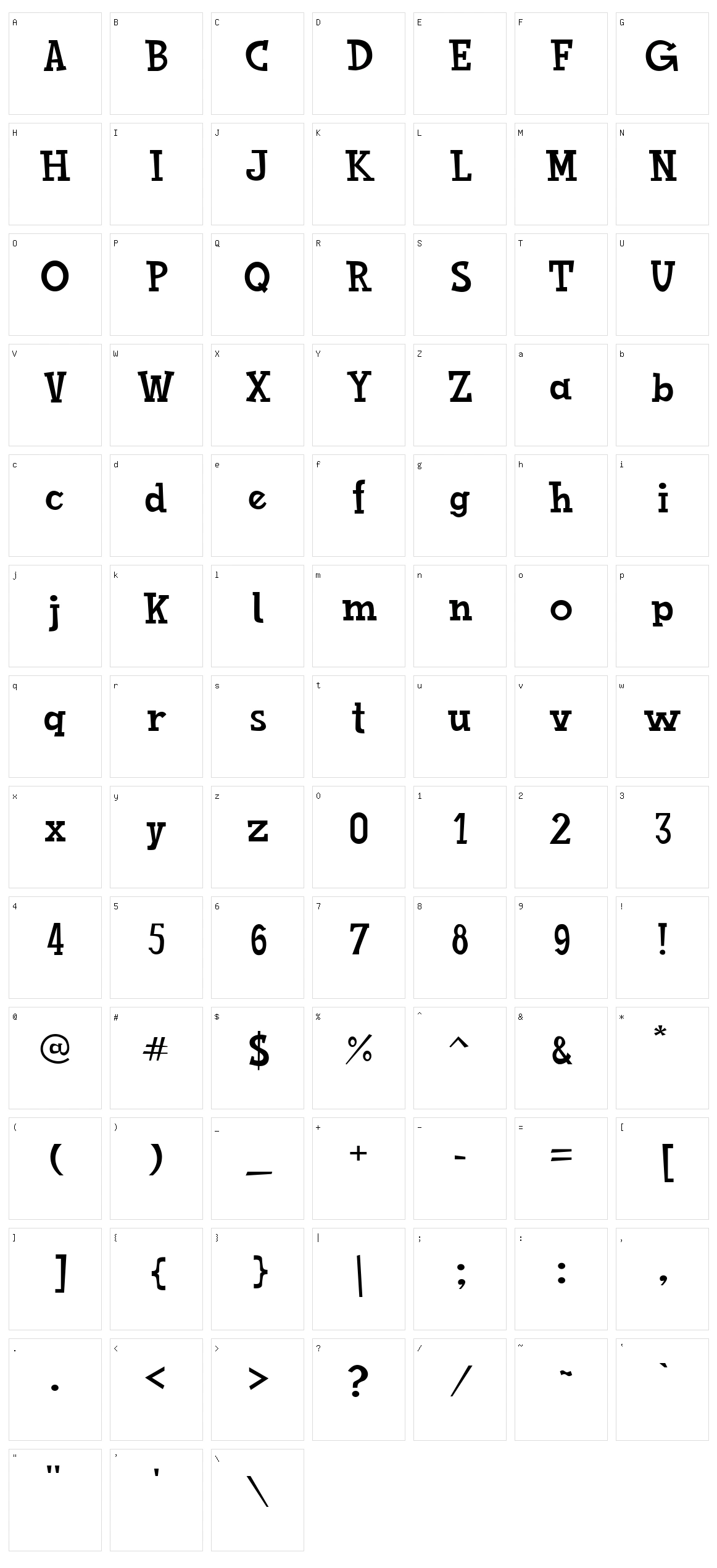
The free font Toy Toy Toon is carefully designed by Galdino Otten Fonts, showcasing a thoughtful balance of creativity and usability and falls under the Cartoon font style. When you download the ZIP file, it contains only 1000.37 KB of font files, making it lightweight and quick to download. Please review the license details below to understand permitted usage and distribution rights. If license information is not available, we recommend using this font for personal projects only or contacting the author directly for commercial usage permissions.